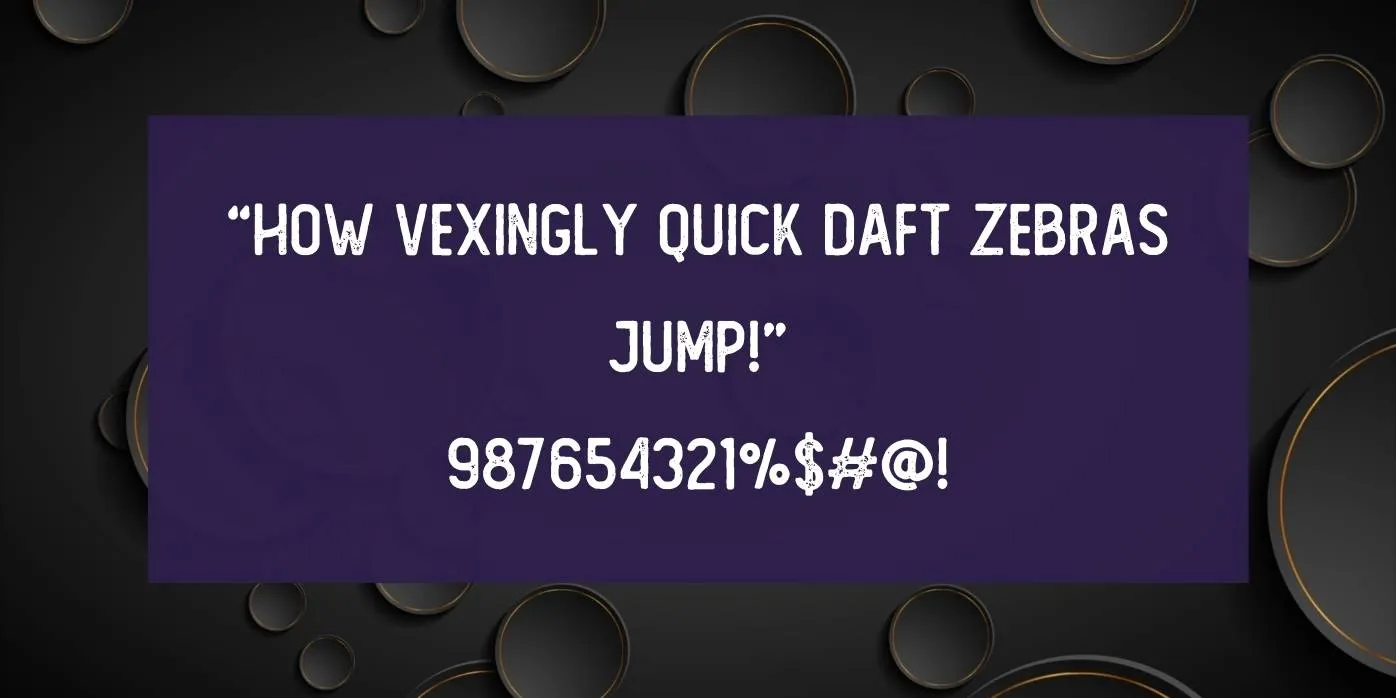
Foregen Font
Foregen Font is a fancy typeface that was created by expert designer Vultype. The idea of this font is to provide a certain degree of flexibility while maintaining sharpness and clarity at small sizes. This typeface has been designed with an extensive character set to support most Latin-based languages. This Font was originally released in 1999 and has since been updated to include new weights and styles.
The current version of this font includes regular, bold, italic, and light weights, as well as small caps. It’s also a good choice for web design, as the font renders well on screens. If you want to compare this typeface style with selima font then it would be the best combination for you.